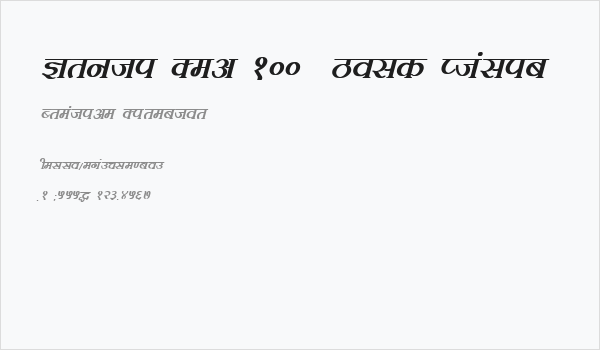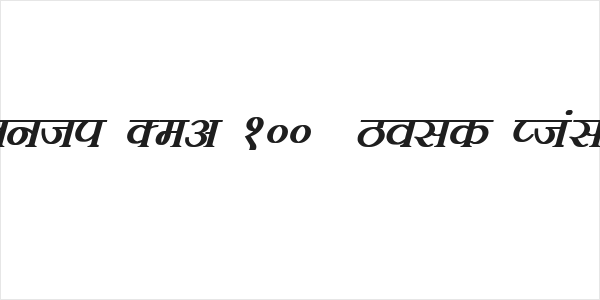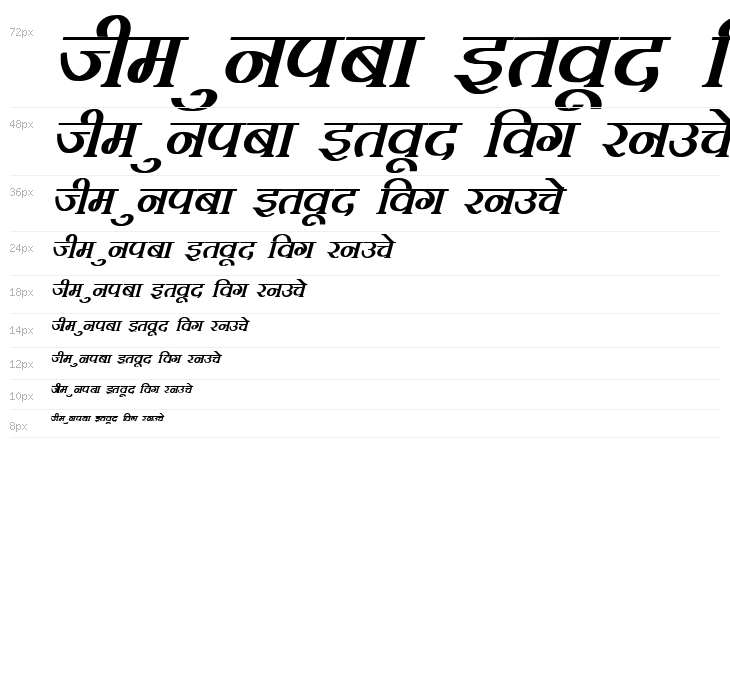
Kruti Dev 100 Bold Italic Font
Kruti Dev 100 Bold Italic Description
This font exhibits a bold and italicized style, characterized by its distinct script-like appearance. The characters are intricately designed with a flowing, cursive quality that adds a sense of elegance and sophistication. The strokes are bold, providing a strong visual impact, while the italic slant gives it a dynamic and fluid motion. The font maintains a consistent thickness throughout, ensuring readability despite its decorative nature. It is well-suited for languages that utilize Devanagari script, offering a traditional yet modern aesthetic. The spacing between characters is balanced, allowing for clear legibility even in dense text settings.
| Use Case | Headlines, Artistic projects, Cultural publications |
| Proposed Projects | Ideal for cultural publications, artistic projects, invitations, and branding that require a traditional yet modern touch. |